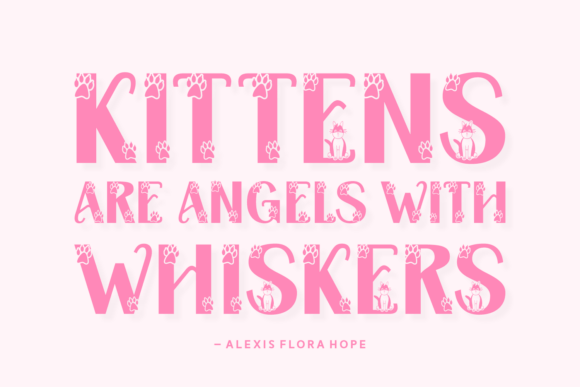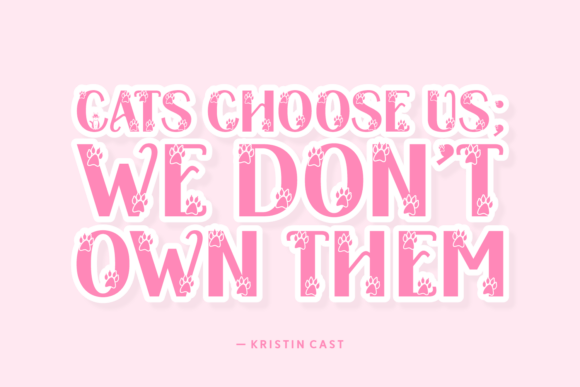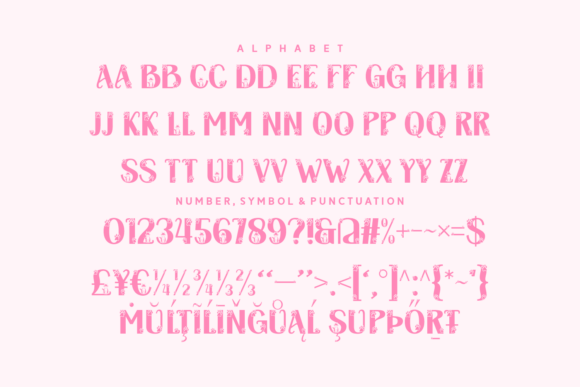
Introduction to Meowy Kitties Font
Introducing the versatile “Meowy Kitties,” a decorative font that encapsulates a playful spirit and a sense of whimsical fun.
You’ll discover “Meowy Kitties” as an ideal choice to illuminate social media posts and add a dash of charm to your photography projects This adorable font is both authentic, and trendy, appealing to lovers of all things cute and kitty-related.
Key Features of Meowy Kitties Font
Why Choose Meowy Kitties Font?
Meowy Kitties Font offers exceptional quality and versatility, making it a valuable addition to your design toolkit. Whether you’re creating for personal projects or commercial use, Meowy Kitties Font delivers professional results.